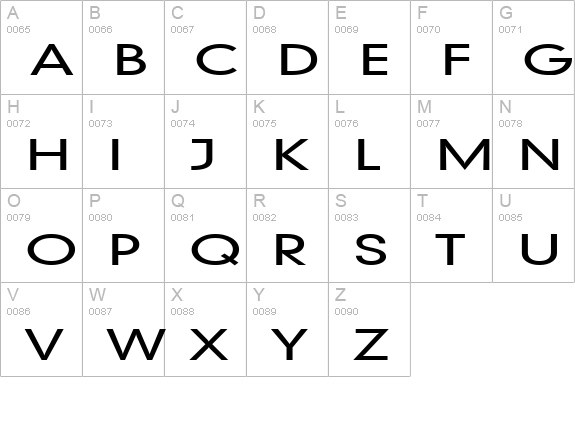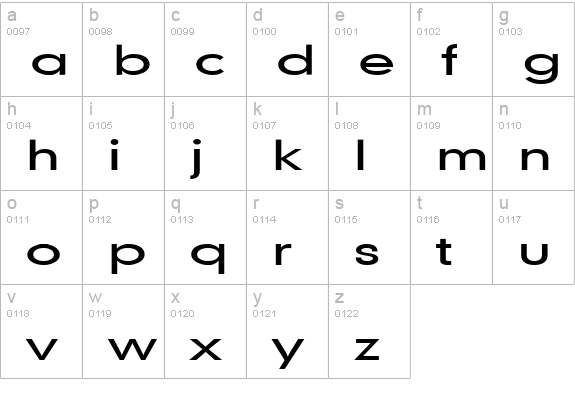
Geo 579 Extended Normal is the standard, neutral, extended-width variant in the Geo typeface family \xE2\x80\x94 well suited to general body text, paragraphs, and standard typographic work.
Introducing Geo 579 Extended Normal font, a sleek and modern typeface that is perfect for a wide range of design projects. With its clean lines and contemporary style, this font exudes sophistication and professionalism. The extended characters add a unique flair to any text, making it stand out from the crowd. What's even better is that Geo 579 Extended Normal font is completely free to download at FontsMarket.com. Yes, you read that right - you can get your hands on this stylish font at no cost! Whether you're working on a branding project, creating eye-catching posters, or designing a sleek website, this font is sure to elevate your work to the next level. Don't miss out on the opportunity to enhance your designs with Geo 579 Extended Normal font. Download it now and let your creativity shine!